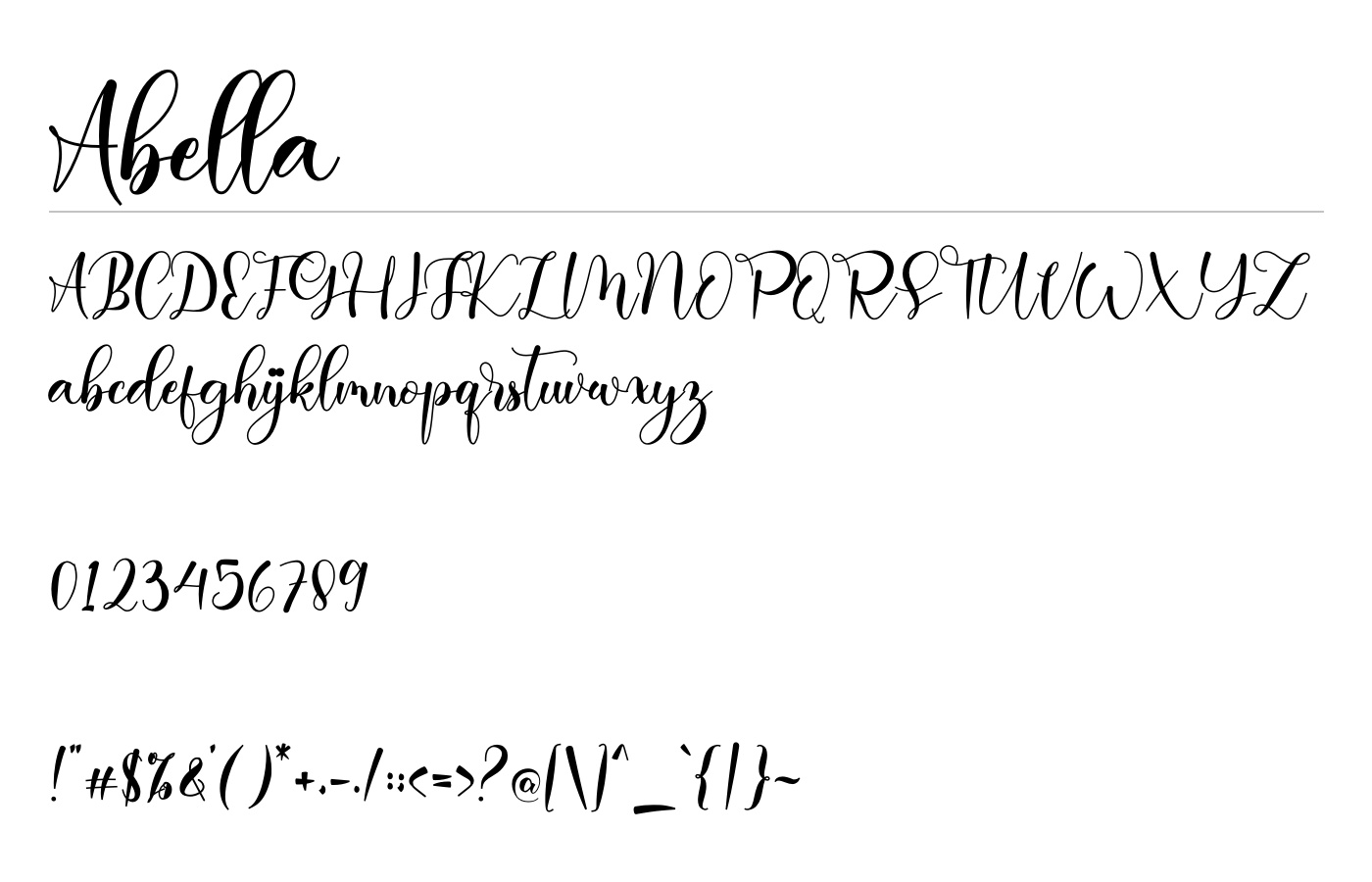
Abella is an elegant script font with a flowing, hand-lettered style that combines smooth curves and delicate flourishes. Its moderate contrast and slender strokes give it a refined and graceful feel, making it perfect for luxury branding, wedding invitations, and feminine editorial designs. This font works best in headlines and decorative uses where a sophisticated yet approachable personality is desired.